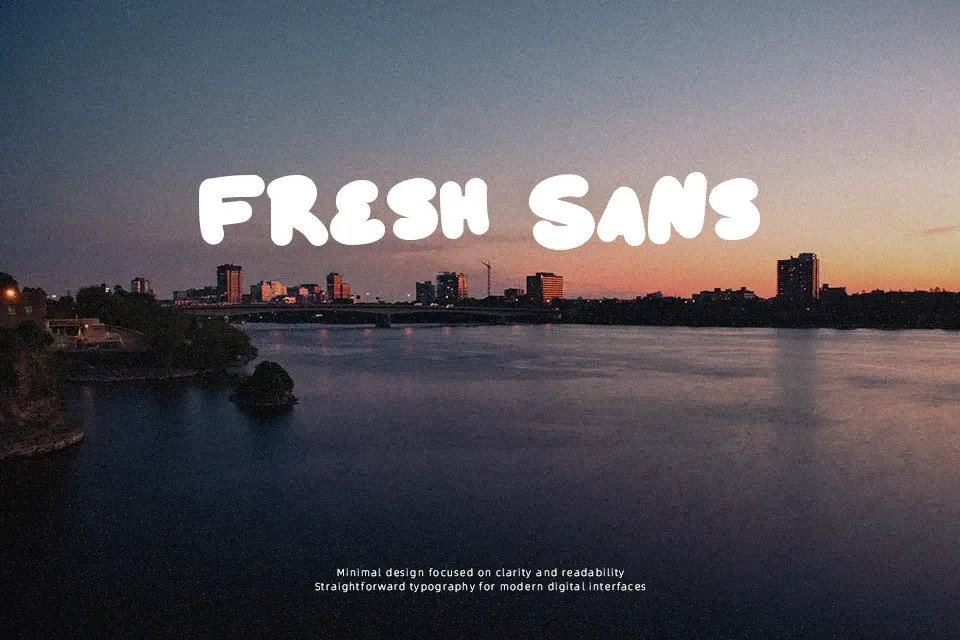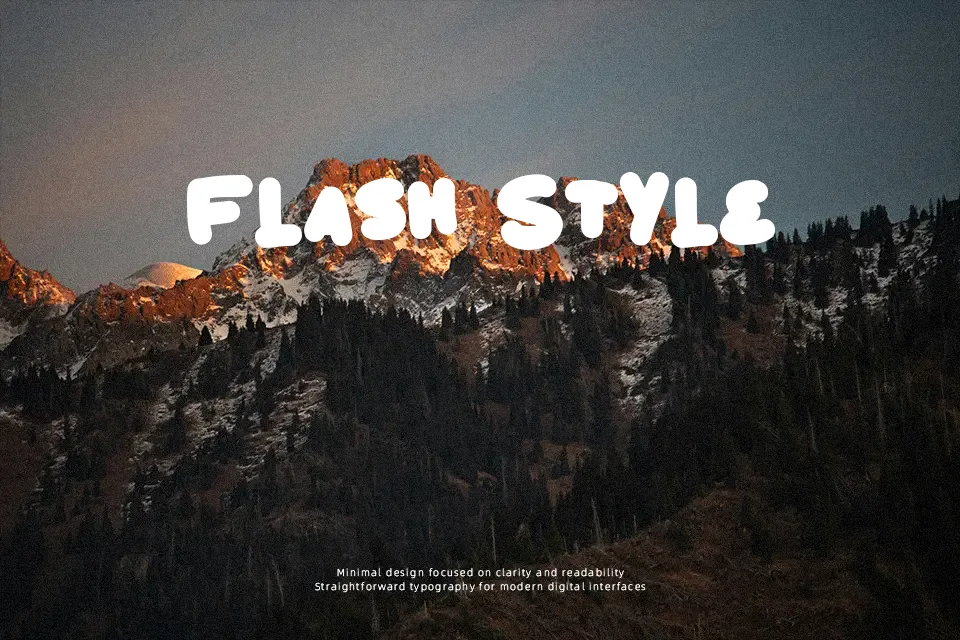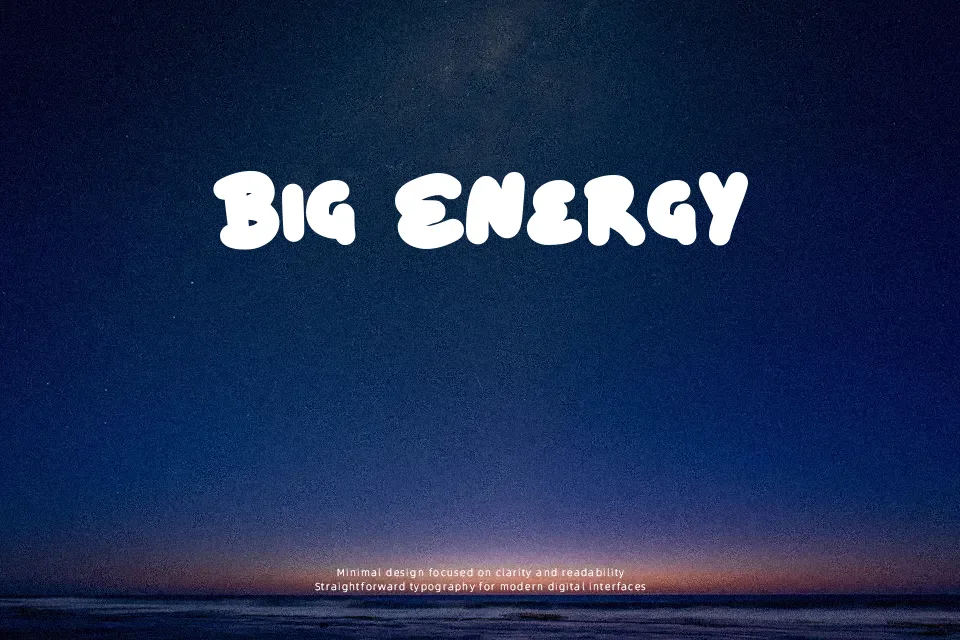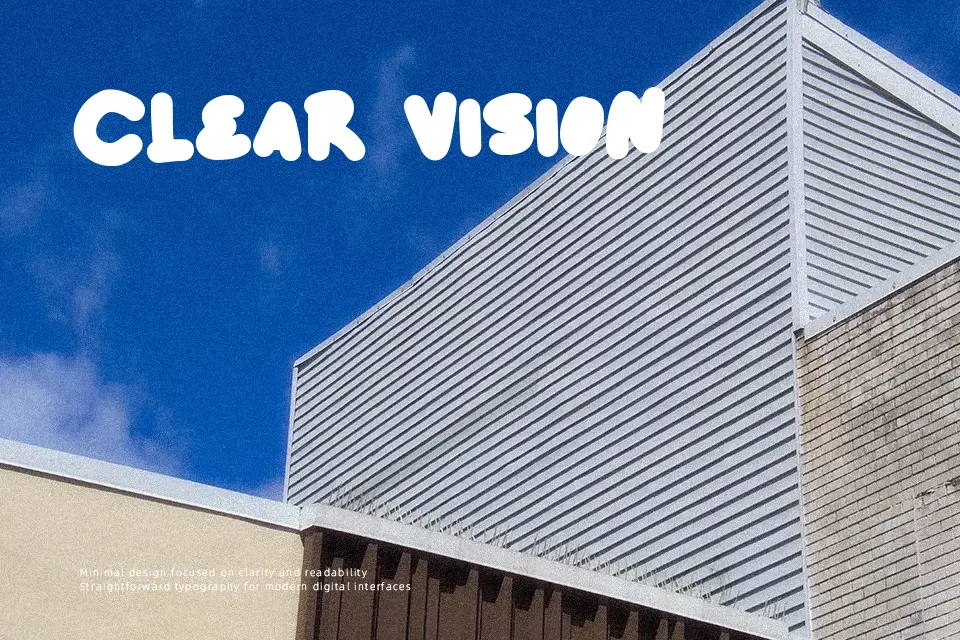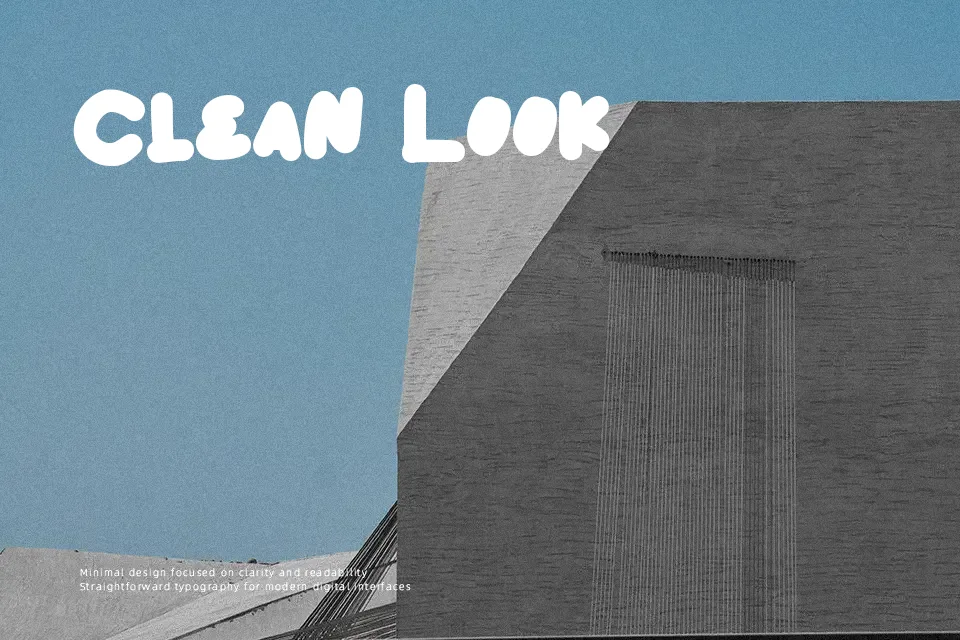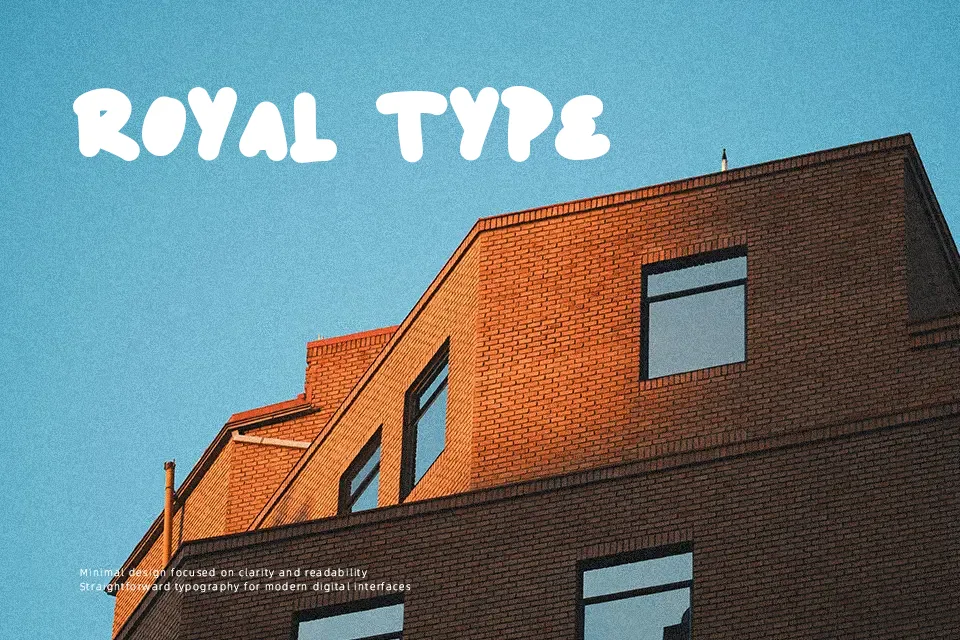
Ballsye Font
The letterforms are thick and rounded with slightly irregular edges that suggest hand-drawn energy rather than precision. This extra-bold weight creates immediate visual impact, but the comic style limits versatility—it reads as playful and somewhat mischievous rather than refined. The font performs well in contexts where boldness and personality are priorities, such as cartoon branding or youth-oriented packaging. However, legibility drops quickly at small sizes due to the heavy weight, and the informal character makes it unsuitable for corporate materials or elegant designs. It shares visual DNA with other comic display fonts but leans more aggressive in weight. The spacing tolerates short phrases better than extended text, where the density becomes overwhelming.
cartoon channel logos
children’s product packaging
gaming team branding
comic book titles
body text or paragraphs
corporate presentations
elegant wedding materials
small print applications
Perfect for branding, gaming, and kids, with a bold and comic style.